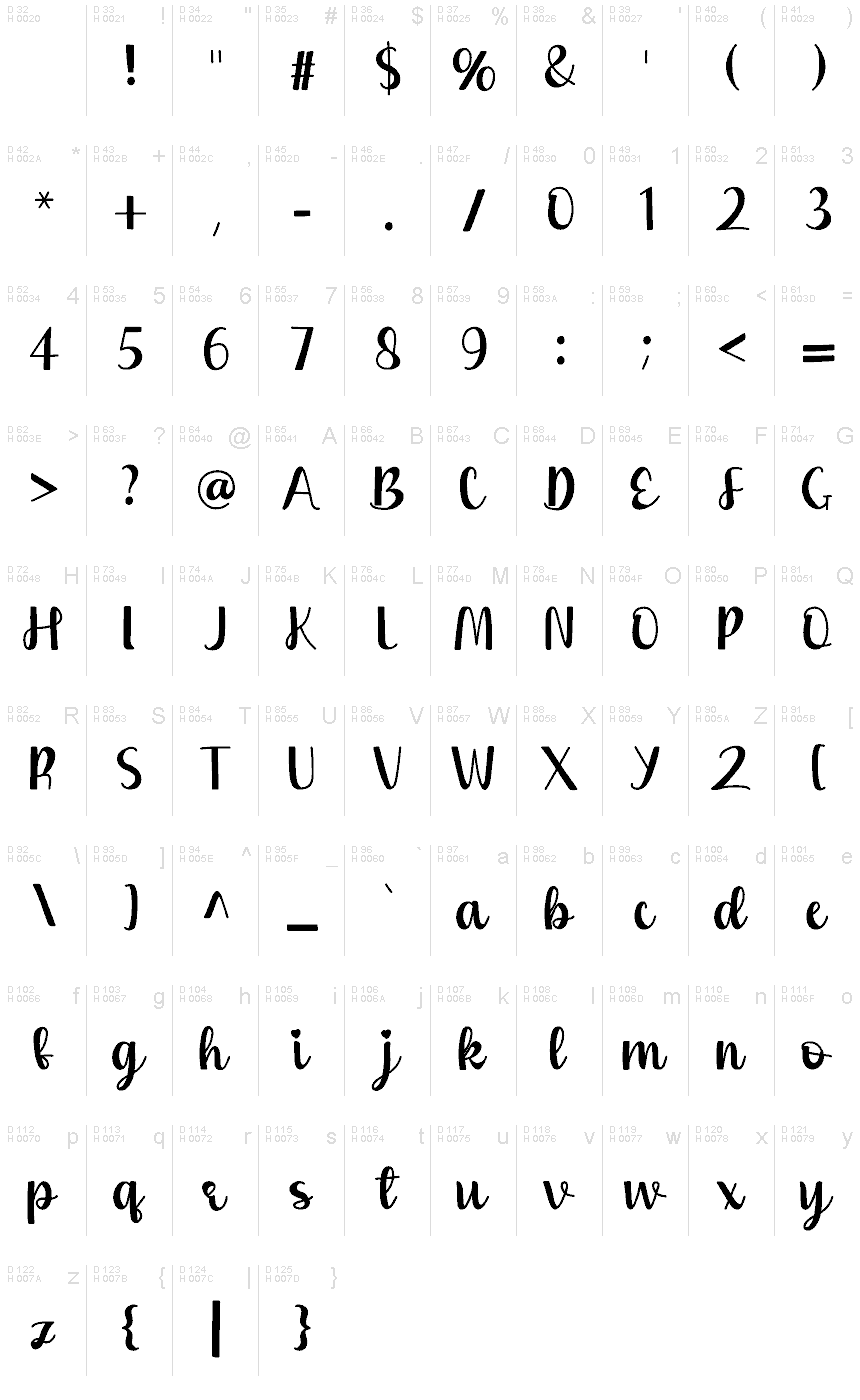
Comfort
Comfort font by Lontong Lodeh is an expressive handwritten font with modern script influences and elegant whimsical character. This font has a warm personality and contemporary edge making it simultaneously stylish, readable, visually pleasing, and comfortable to read.
Comfort is perfect for creative branding projects, business cards designs, quotes posters, logo titles, invitation cards decorations, writing product description texts, apparel designs like t-shirt prints and embroidery designs for hoodies. Other uses include social media websites graphics designing or developing videos for your page followers.